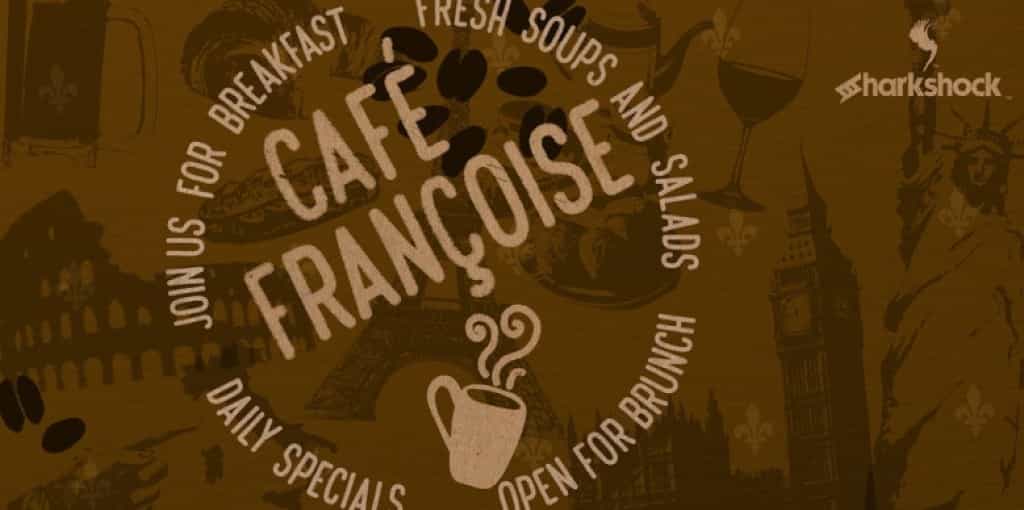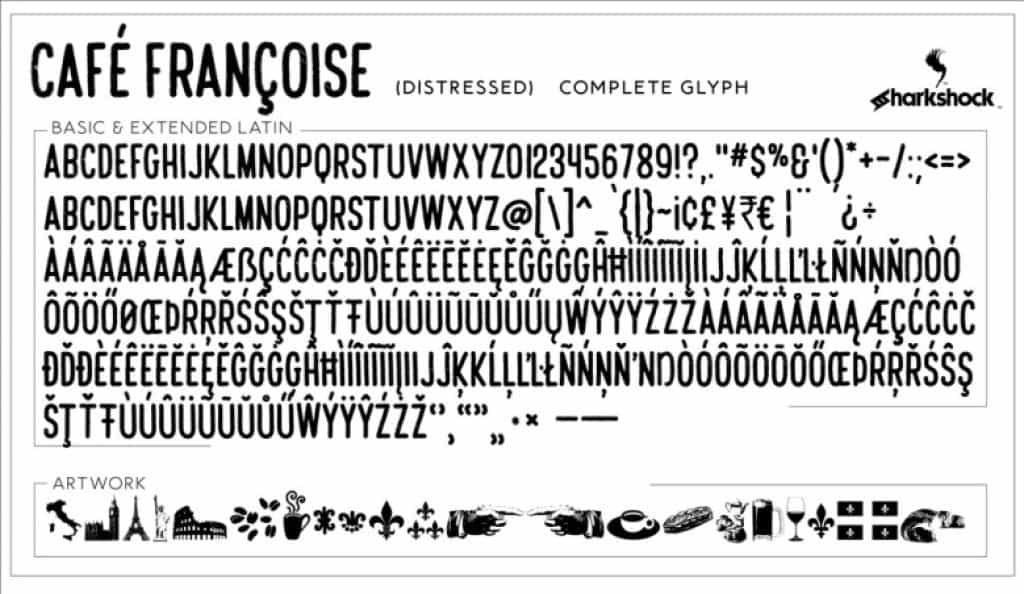
Cafe Francoise is a display font that was inspired by the chalkboard that can be seen outside cafes in Europe where specials are written on it from the cafe’s outside area. A casual design that encourages relaxation when drinking espresso; slightly off and slightly eroded glyphs, resembling handwriting; all the basic Latin Extended Latin diacritics and punctuation marks are available for use.